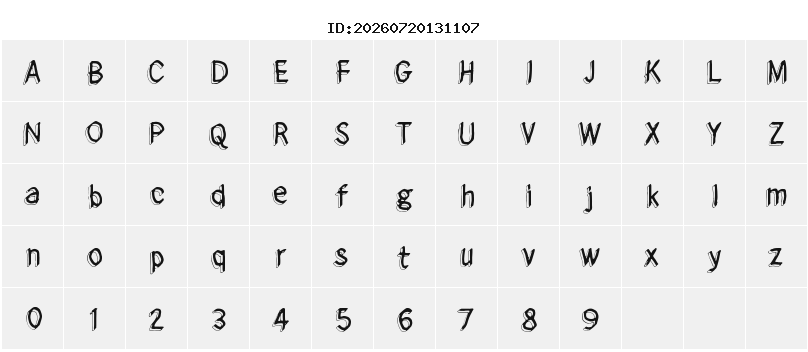
• Font Name: From here to eternity
About From here to eternity.ttf
From here to eternity.ttf is a modern, elegant sans-serif font designed for ultimate readability and visual harmony. Perfect for branding, headlines, web design, and print materials.